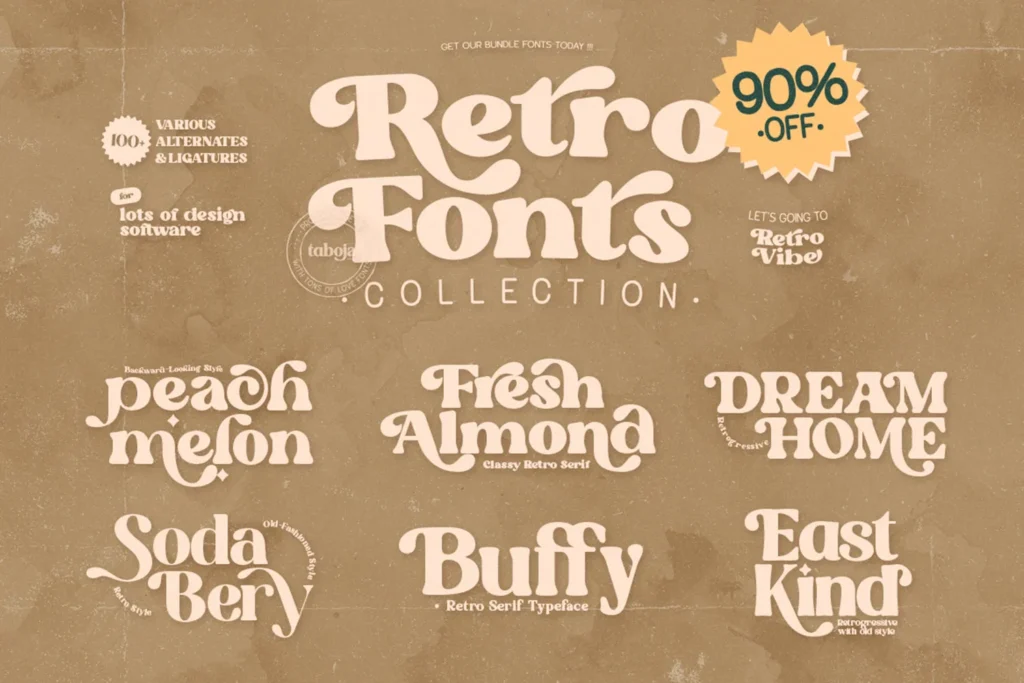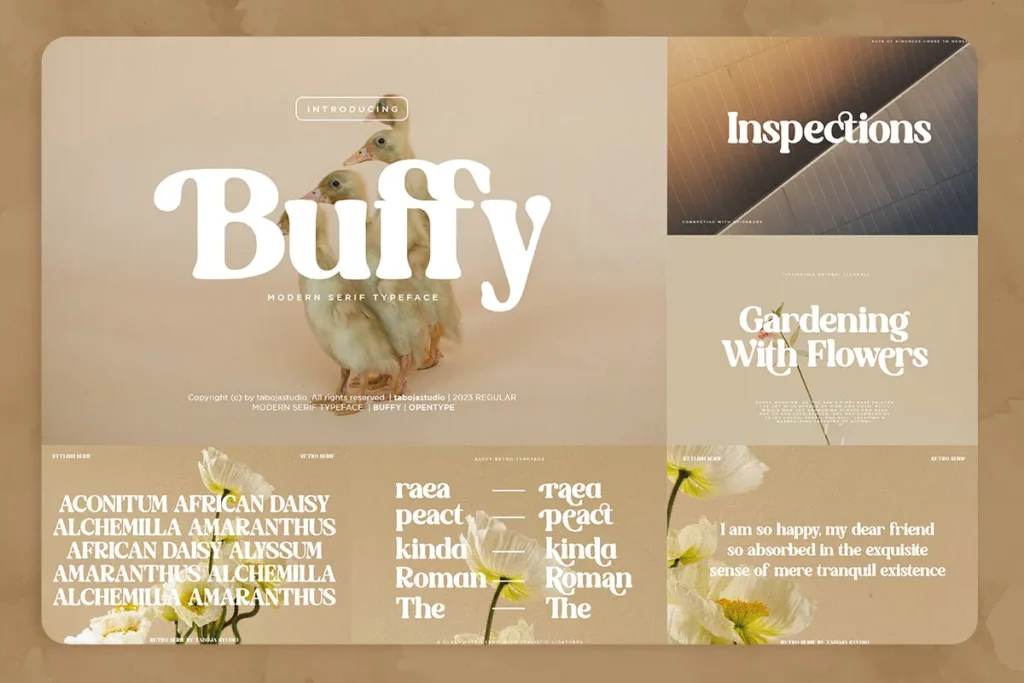
Retro Fonts Collection
Introducing:
RETRO FONT COLLECTION
THE BEST OFFER COLLECTION IN OUR SHOP IS FINALLY HERE! A lot of fonts for your projects are in one place. With this Retro Collection, you can design stylish logotypes for your clients, and create gorgeous branding, logos, blogs, social media, wedding invitations, posters, magazines, and others.
• Fresh Almond Font
• Peach Melon Font
• Dream Home Font
• Buffy Font
• Sodabery Font
• East Kind Font